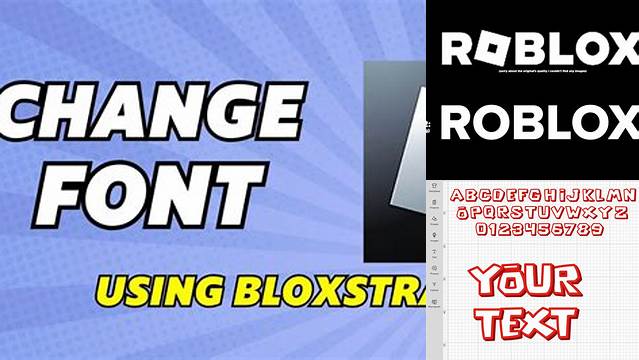
Roblox Fonts: Complete Guide To Fonts & Customization
Hey there, Roblox enthusiasts! Ever wondered how to spice up your game with some cool text? Well, you're in the right place! This comprehensive documentation guide will dive deep into Roblox fonts, helping you understand, utilize, and manipulate them to create stunning visual experiences within your games. From the basics of font selection to advanced customization techniques, we'll cover everything you need to know. Get ready to transform your text into eye-catching elements that will keep your players hooked. Let's get started!
Understanding Roblox Font Basics
Let's kick things off by understanding the fundamental aspects of Roblox fonts. When we talk about fonts in Roblox, we're referring to the different styles and appearances of text that you can use within your games. These fonts determine the way your words look, impacting readability, style, and overall visual appeal. Think of it like choosing the right outfit for your text – it has to match the context and the vibe you're going for! Roblox provides a variety of built-in fonts, each with its unique characteristics, and offers the flexibility to import custom fonts as well. Understanding the distinctions between these fonts is the key to creating a game that looks polished and professional. The built-in fonts are easily accessible and ready to use, while custom fonts require a bit more setup, but they offer unparalleled creative freedom. This section will break down the default font options available, as well as the steps involved in integrating custom fonts. We'll look at the properties and settings that affect how fonts are displayed, and how to use them effectively within your game. For instance, you'll learn how to use the Font property of various UI elements, such as TextLabel and TextButton, to change the font of the text displayed on those elements. You'll also learn about the TextStrokeColor3 and TextStrokeTransparency properties to add outlines and enhance the visibility of your text. Furthermore, we'll cover how to adjust the size and alignment of your text, ensuring it looks perfect in any situation. Getting a handle on these basics will give you a solid foundation for all your future font-related endeavors! With the right font, your game's user interface can become much more appealing and easy to navigate, and it can also enhance the overall atmosphere of your game, making it more immersive and enjoyable for players.
Built-in Roblox Fonts
Alright, let's dive into the built-in Roblox fonts, the ones you get to play with right out of the box! Roblox offers a selection of default fonts that are designed to look good and work well across various devices. These fonts are specifically optimized for the Roblox platform, so they ensure smooth performance and consistent display, no matter where your players are playing. Some of the most popular built-in fonts include Arial, SourceSansPro, GothamSemibold, FredokaOne, Roboto, and SciFi. Each of these fonts has its distinct style, allowing you to match your text to the overall aesthetic of your game. For example, Arial is a clean and versatile font, perfect for general information, while SciFi adds a futuristic feel to your text, ideal for sci-fi themed games. The FredokaOne is a more playful and friendly option, suitable for games aimed at a younger audience. When choosing a built-in font, consider the message you want to convey and the overall style of your game. Think about readability, consistency, and whether the font fits the theme. The built-in fonts are generally easy to read and are designed to work well on different screen sizes, so they're great for ensuring a positive user experience. To use a built-in font, you typically access the Font property of a TextLabel or other UI element in the Properties window. Then, select the desired font from the dropdown menu. You can also change the font dynamically through scripts by setting the Font property to the appropriate font enum value. Experiment with different built-in fonts to see which one best suits your needs. They're a great place to start, and they can save you the time and effort of finding and importing custom fonts. Learning to use these fonts effectively is a crucial step in becoming a successful Roblox developer. Don't be afraid to explore and get creative! Understanding these fonts is the first step in bringing your game's UI to life.
Custom Font Import
Now, let's talk about taking your text game to the next level with custom font import! While the built-in fonts are fantastic for many scenarios, sometimes you want that extra bit of unique flair. Importing custom fonts allows you to use any font you like, giving you complete creative control over the look and feel of your text. This process involves uploading a font file (usually a .ttf or .otf file) to Roblox and then referencing it in your game. Keep in mind that while custom fonts offer significant creative benefits, there are also a few things to keep in mind. One important aspect is that you need to be mindful of licensing when using custom fonts. Ensure that you have the right to use the font in a commercial game. Also, be aware that custom fonts might impact the performance of your game, particularly if you're using a lot of different fonts or very complex ones. The process itself involves a few steps. First, you'll need to find a font you like. Websites like Google Fonts and DaFont offer a huge selection of free and paid fonts that you can download. Once you've chosen your font and downloaded the font file, you'll need to upload it to Roblox. You'll do this by uploading the font file as an asset in the Toolbox. After the font file is uploaded, Roblox will give you an asset ID. You'll then use this asset ID to reference the custom font within your UI elements. To use the custom font, you'll adjust the Font property of a TextLabel or other UI element. When you change the font property, you'll be able to select your imported font from the list of fonts. The asset ID will then tell the game to load and use your custom font. Keep in mind that you need to use the font in a place where your players can see it. Once you have this set up, your game's UI can look truly unique and stand out from the crowd! The added effort of incorporating a custom font is often worth it, as it allows you to create a distinctive look and feel, making your game stand out in the crowded Roblox marketplace.
Mastering Font Properties and Customization
Now that you've got the basics down, let's get into the real fun: mastering font properties and customization! This section will cover everything you need to know to make your text look exactly the way you want it. We'll delve into all the properties that allow you to tweak the appearance of your fonts, from size and color to stroke and shadow. With these tools, you can make your text pop, blend in, or become an integral part of your game's aesthetic. Understanding and using font properties correctly will help you create a professional and engaging user experience. This will include properties such as TextScaled, TextSize, TextColor3, TextStrokeColor3, and more. We'll also discuss how to use these properties in conjunction to get the best possible result. You will learn how to apply these adjustments directly in the Properties window and through the power of scripting. By the end of this section, you'll be able to transform simple text into visually appealing elements that enhance your game and keep your players engaged. The key is to experiment and see what works best for your game's style. Remember, effective text is both readable and visually interesting!
Text Properties: Size, Color, and Style
Let's start by exploring the key text properties: size, color, and style. These are the fundamental properties that you'll be using constantly to make your text look just right. The first, TextSize, controls the size of the font. You can adjust this value to make your text bigger or smaller, depending on your needs. Make sure the text size is readable on different screen sizes. Next, you have TextColor3, which sets the color of your text. You can use the color picker to choose a specific color, or you can type in a hex code. The color you choose can greatly influence the mood of your game. Also, the style of your text can be affected by the Font property (which we talked about earlier) and other features. You can control the basic style properties like TextScaled, which automatically scales the text to fit the size of the text box, so it's a super handy option! Finally, you might want to add some TextStrokeColor3 to add an outline. TextStrokeTransparency makes it more or less see-through. These basic properties are the foundation upon which all your text customization is built. Experiment with these properties to see how they affect the overall look and feel of your text. Finding the right combination is all about balancing readability and visual appeal. Using the right text style, size, and color can drastically improve your game's appearance and user experience. These properties give you the tools to make your text blend in with the background, stand out, and enhance the overall aesthetic of your game.
Advanced Customization with Text Effects
Okay, let's take things up a notch with advanced customization with text effects! You can use text effects to add more pizzazz to your text. Now you can create visually striking text elements that will grab your player's attention. Features like TextStrokeColor3 and TextStrokeTransparency enable you to add outlines to your text, making it pop against the background. Adjust the TextStrokeTransparency to control the thickness of the outline. These effects are important for readability and aesthetics. Consider adding shadows to your text, using properties like TextStrokeColor3 and TextStrokeTransparency to create a subtle shadow effect. This can make your text appear more three-dimensional and visually appealing. Experiment with different colors and transparency levels to achieve the desired effect. Furthermore, the RichText property can add bold, italic, and colored text. The RichText feature allows you to use a set of HTML-like tags directly in your text. For instance, you can use the <b> tag for bold text, the <i> tag for italic text, and the <font> tag to change the color of a specific part of your text. Text effects aren't just about making things look good; they can also improve readability and enhance the user experience. Applying these techniques will allow you to take your game's text to a whole new level. They will help you to make your UI more engaging, dynamic, and fun to interact with.
Optimizing Fonts for Performance and Readability
Alright, let's talk about something super important: optimizing fonts for performance and readability. While it's fun to get creative with fonts, we need to make sure our games run smoothly and that the text is easy to read. This section will cover some tips and tricks to help you balance visual appeal and performance. No one wants a game that lags or has hard-to-read text! Let's make sure your fonts work hard without breaking a sweat, while still looking fantastic. Remember that your game's performance directly impacts player experience, so it's crucial to keep performance in mind while creating a game. We'll consider the factors that affect font performance and readability. Doing this makes your game more accessible and appealing to a wider audience. Focus on the most important points to keep your fonts in tip-top shape!
Font Performance Tips
First up, let's dive into some font performance tips. When it comes to fonts, every little bit counts. The performance of your game can be greatly influenced by the fonts you use. So, here are some things to consider. Number one: try to stick to a limited number of fonts. Loading multiple fonts can increase loading times and potentially impact performance, especially on lower-end devices. Secondly, use built-in fonts whenever possible. Roblox's built-in fonts are optimized for the platform, which makes them faster to load and render than custom fonts. Thirdly, optimize your custom fonts. If you're using custom fonts, make sure you're only using the necessary font files. Reduce the size of the font files to minimize the impact on performance. Make sure you're not using overly complex fonts or fonts with too many glyphs, as these can also slow things down. Additionally, make sure you're only loading fonts that you actually need. If a font is not used anywhere in your game, then it is best to remove it. Finally, test on different devices. Remember to test your game on various devices to ensure that the fonts are rendering correctly and that the performance is still up to par. This is particularly important for mobile devices, which may have limited processing power. These simple steps will go a long way in ensuring that your game performs well while still looking great. Focusing on performance can significantly enhance the player experience and keep your game running smoothly.
Font Readability Best Practices
Next, let's look at font readability best practices. It doesn't matter how cool your font looks if nobody can read it! Readability is key to user experience. These are the things that will enhance the readability of your game's text. First, choose fonts that are easy to read. Fonts with clean lines and simple designs are generally easier to read than fonts that are overly stylized or complex. Second, consider the font size. Make sure your text is large enough to be read comfortably on all screen sizes, especially on mobile devices. Third, think about the contrast between your text and the background. High contrast makes text much easier to read. For instance, white text on a black background is usually better than light gray text on a white background. Fourth, make sure your text isn't too cluttered. Use sufficient spacing between letters and lines. This makes it easier for the eye to scan and understand the information. Fifth, be careful with text effects. While things like shadows and outlines can look cool, they can sometimes reduce readability if overused. Make sure that any effects you use enhance, rather than hinder, the readability of your text. Use the right font style. Avoid using fonts that are too thin or too bold, as these can be difficult to read. Choosing the right font is an important factor for readability. Keep your text aligned and organized. Poor alignment can make your text hard to read. Following these best practices will help you ensure that your game's text is easy to read and that your players can understand the information presented to them. A readable game is a playable game!
Conclusion: Elevate Your Roblox Games with Stunning Fonts
Alright, we've covered a ton of ground! You've now got the knowledge to take your Roblox game fonts to the next level. From understanding the basics to mastering advanced customization techniques, you're now equipped to create visually stunning text elements. Remember to consider both aesthetics and performance when choosing and implementing fonts. By following the tips and techniques in this guide, you'll be able to create a game that's not only fun to play, but also visually appealing and engaging. So go forth and experiment! Try out different fonts, colors, and effects to find the perfect style for your game. Let your creativity run wild and bring your vision to life. The world of Roblox font customization is vast and exciting, and the possibilities are endless. Embrace the power of text, and watch your games transform. Happy developing! Now go out there and create some amazing games!